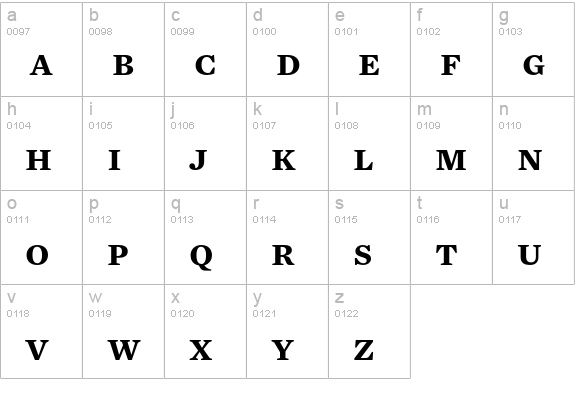
Mercury Text G1 Semibold SC Font Details
Mercury Text G1 Semibold SC is a sub-bold, structured variant in the Mercury typeface family \xE2\x80\x94 well suited to sub-headlines and emphasised passages.
Mercury Text G1 Semibold SC is a versatile and modern font that exudes confidence and professionalism. With its bold and stylish appearance, this typeface is perfect for creating eye-catching headlines, titles, and other design elements. The semi-condensed style gives it a sleek and streamlined look, making it ideal for projects that require a contemporary touch. What sets Mercury Text G1 Semibold SC apart is its perfect balance between readability and style. The semi-bold weight adds emphasis to your text without sacrificing legibility, making it a great choice for a wide range of design applications. Whether you're working on a website, a poster, a logo, or any other project, this font will help you make a lasting impression. Best of all, Mercury Text G1 Semibold SC is available for free download at FontsMarket.com. This means you can start using this high-quality font in your projects right away without having to worry about any additional costs. Don't miss out on the opportunity to enhance your designs with this elegant and versatile typeface. Download Mercury Text G1 Semibold SC today and take your creations to the next level.